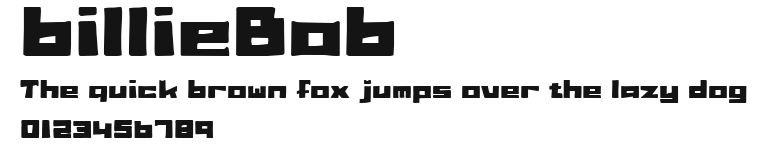
• Font Name: billieBob
• Full Font Name: billieBob
• Designer: J O E B O B graphics
• Manufacturer: J O E B O B graphics
About billieBob.ttf
billieBob.ttf is a modern, elegant sans-serif font designed for ultimate readability and visual harmony. Perfect for branding, headlines, web design, and print materials.